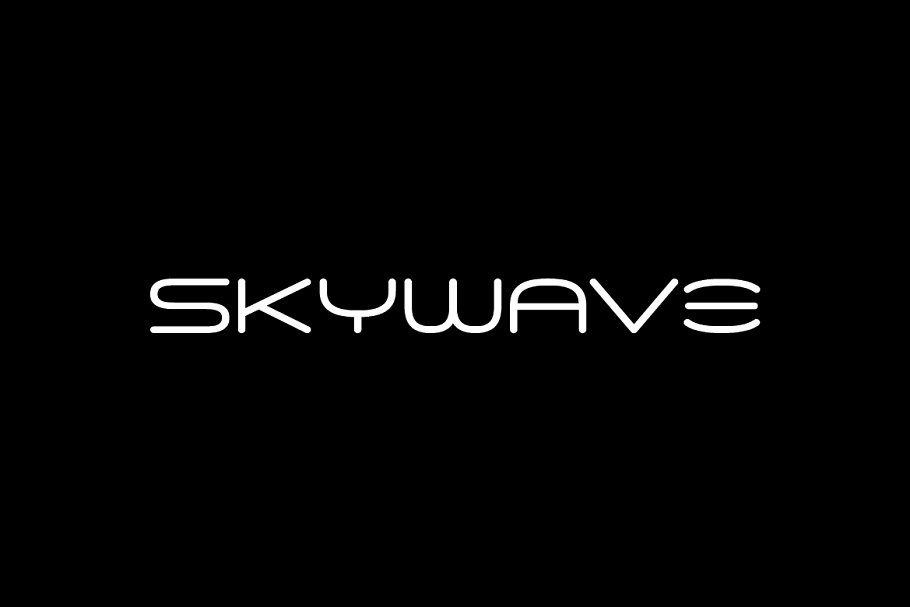
Skywave Font
The Skywave Font excels in various design applications including aviation industry branding, aerospace company identities, airline marketing materials, travel agency graphics, weather service communications, radio station logos, telecommunications branding, sky-themed event posters, and atmospheric technology companies. This dynamic typeface brings aerial sophistication to both digital platforms and aviation-focused print materials.
What makes Skywave Font exciting is its fluid wave-inspired letterforms that capture the graceful movement of air currents and atmospheric phenomena. The font features flowing curves with aerodynamic influences and strategic undulations that evoke the natural patterns of sky and wind while maintaining exceptional readability. Its atmospheric design philosophy combines meteorological inspiration with modern functionality, creating visual experiences that feel both organic and technologically advanced.
The Skywave Font family includes multiple weights and styles: Light, Regular, Medium, Bold, Condensed, and Italic variations. Each style maintains the signature wave-like character while offering designers comprehensive flexibility for aviation-themed brand systems and atmospheric layouts. The complete character set supports international languages and includes meteorological symbols, aviation elements, and contemporary punctuation marks perfect for sky-related industry applications.
The technical excellence of Skywave Font includes precision-crafted wave mechanics, optimized flowing letterforms, and seamless cross-platform performance. Whether you're designing airline logos or complex meteorological layouts, this font delivers consistent atmospheric elegance. The balanced proportions work exceptionally well in large-scale aviation applications while maintaining clarity in detailed technical documentation and flight manuals.
Creative studios appreciate how Skywave Font enhances brand communication through its authentic atmospheric aesthetic. The font's flowing appeal makes it ideal for aerospace engineering firms, satellite companies, air traffic control systems, and weather technology brands seeking to convey innovation and reliability. Its wave-like character complements various design styles while establishing distinctive brand personalities in aviation markets.
From small instrument panels to massive airport signage, Skywave Font maintains its flowing presence across all applications. The font's robust construction ensures visual impact in competitive aviation environments while its atmospheric details demonstrate exceptional quality, making it an essential tool for designers creating memorable sky-themed brand experiences.